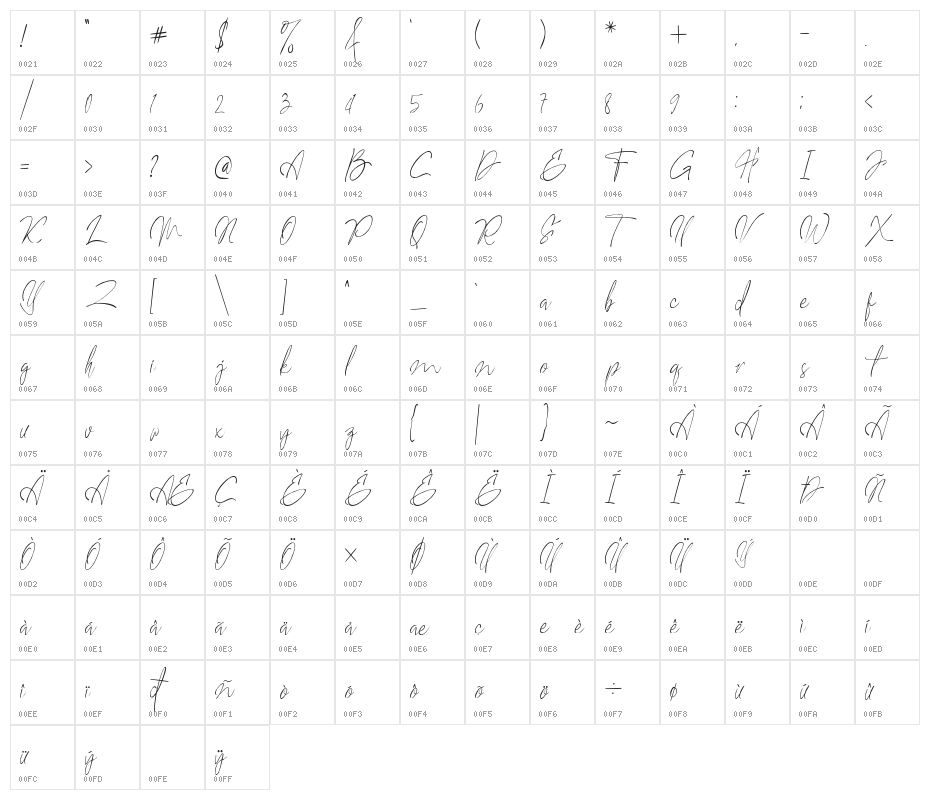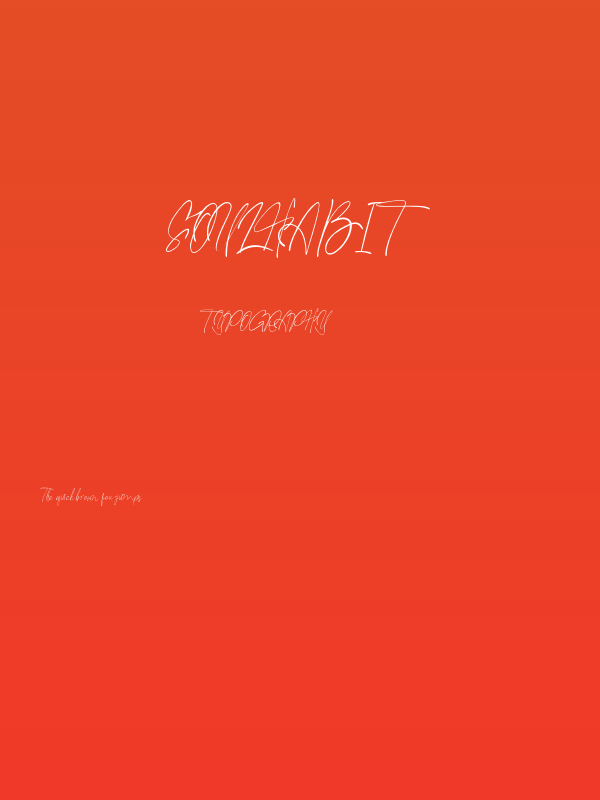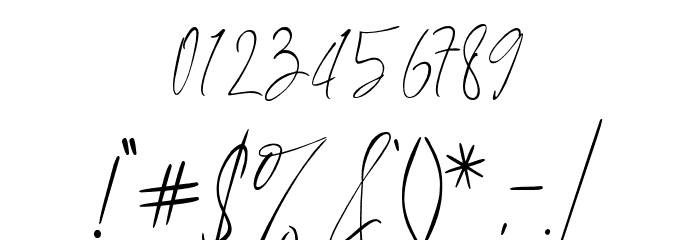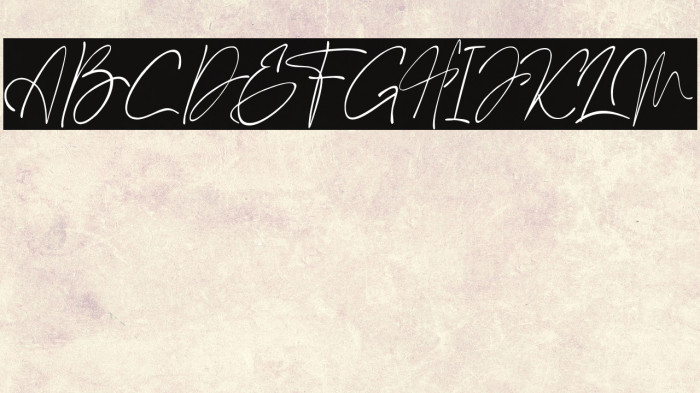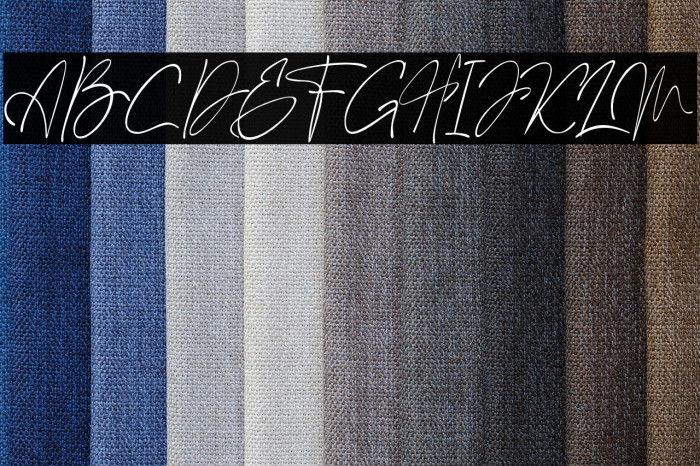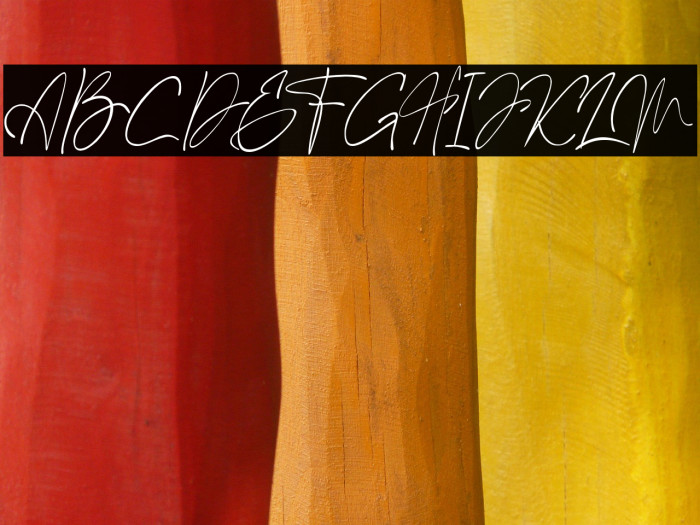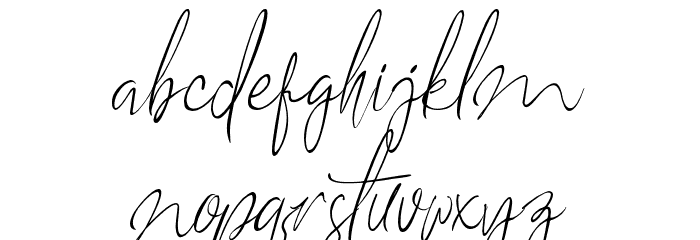
SoulHabit Font
SoulHabit Description
This font features a dynamic and flowing script style, characterized by its elegant and fluid strokes. The letters are interconnected, giving it a handwritten appearance with a modern twist. The uppercase letters are bold and expressive, while the lowercase letters maintain a consistent rhythm and grace. The numerals and special characters are crafted with the same attention to detail, ensuring a cohesive look across all glyphs. The overall design is both sophisticated and approachable, making it suitable for a variety of creative applications. Its unique style captures a sense of movement and personality, ideal for projects that require a personal touch.